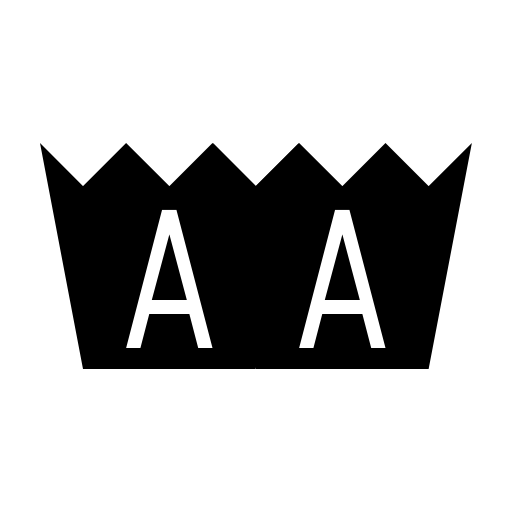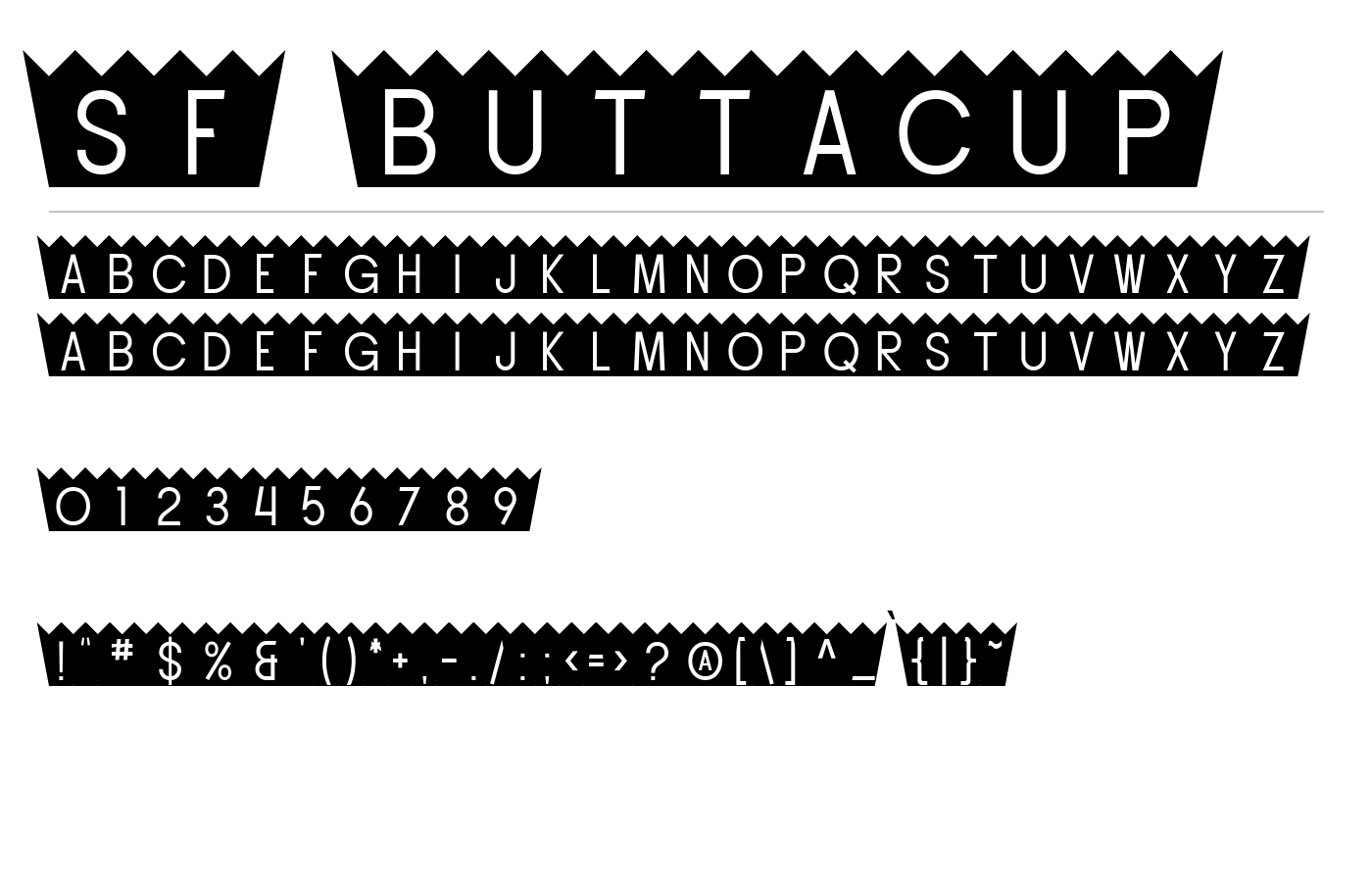
SF Buttacup is a narrow, sans serif font characterized by its tall, condensed letterforms and consistent weight, giving it a clean and modern appearance. Its geometric simplicity and sharp edges make it well-suited for impactful headlines, logos, and packaging where space is limited but clarity and style are essential. This font works best in contemporary design contexts that seek a bold yet refined aesthetic.
SF Buttacup Font
About SF Buttacup Font